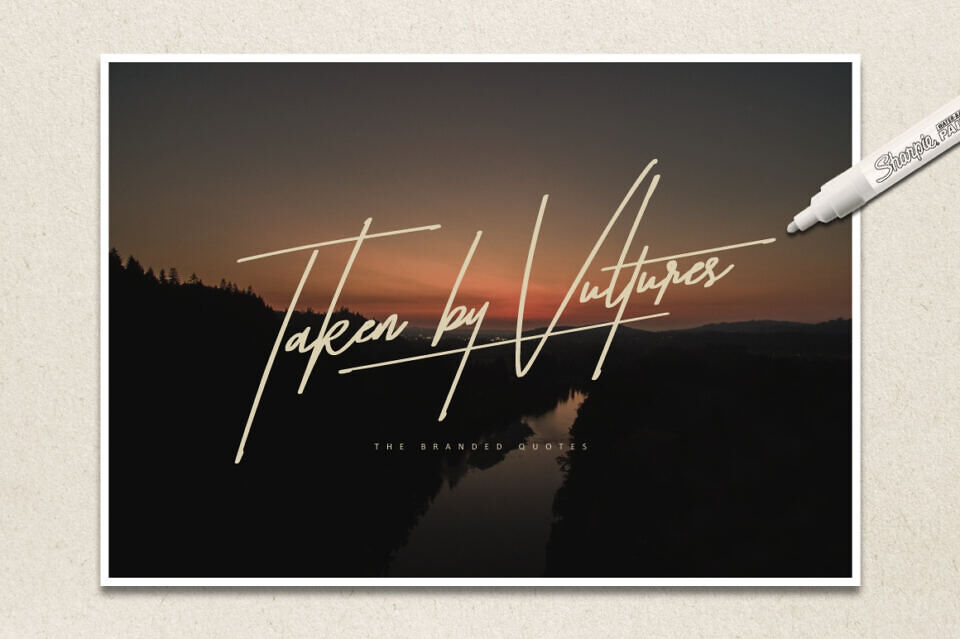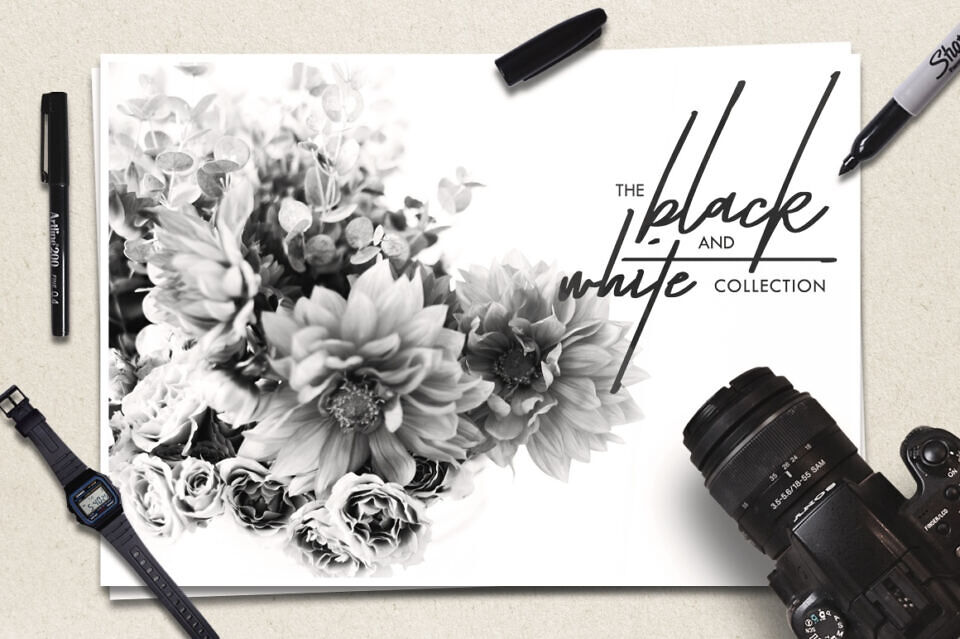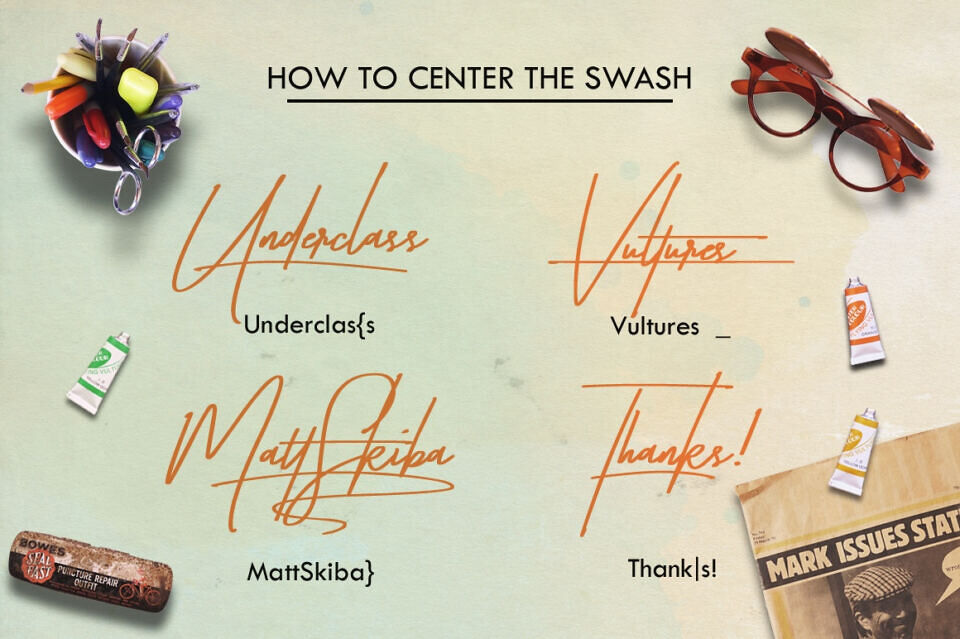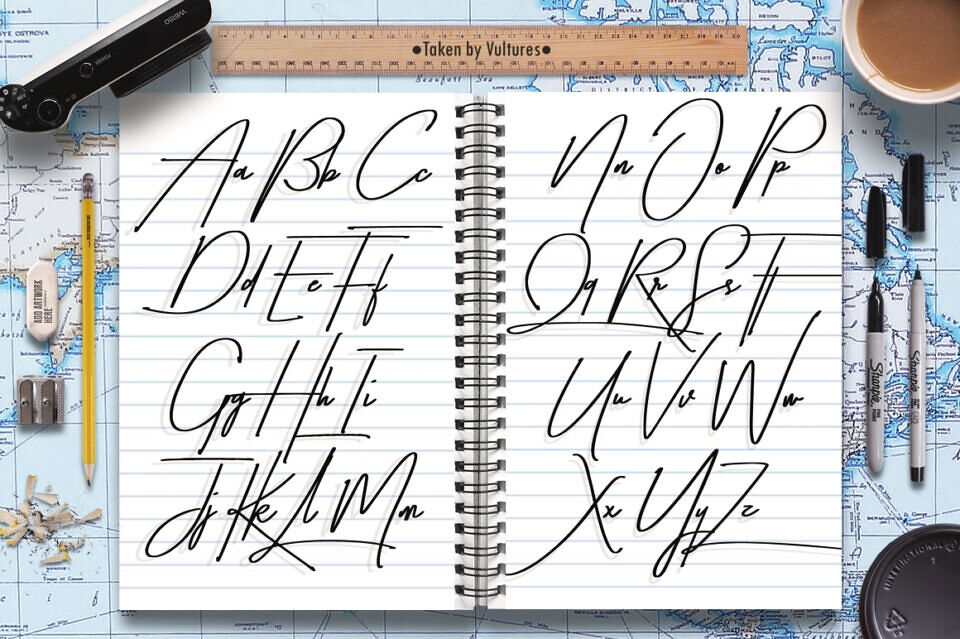
Taken by Vultures offers a unique hand-lettered typeface that combines photography and branding elements. Its distinctive glyphs blend together to create a one-of-a-kind look. Use it as a signature text or presentation cover to make your projects stand out and leave a lasting impression.
- Taken by Vultures – gives you the uppercase, lowercase, punctuation, numerals, a ligature and alternates of the font. Don’t forget to use the swashes found on some of its punctuation!
- Taken by Vultures Alternates – the combination of the lowercase regular and some alternates which makes the font more unique!